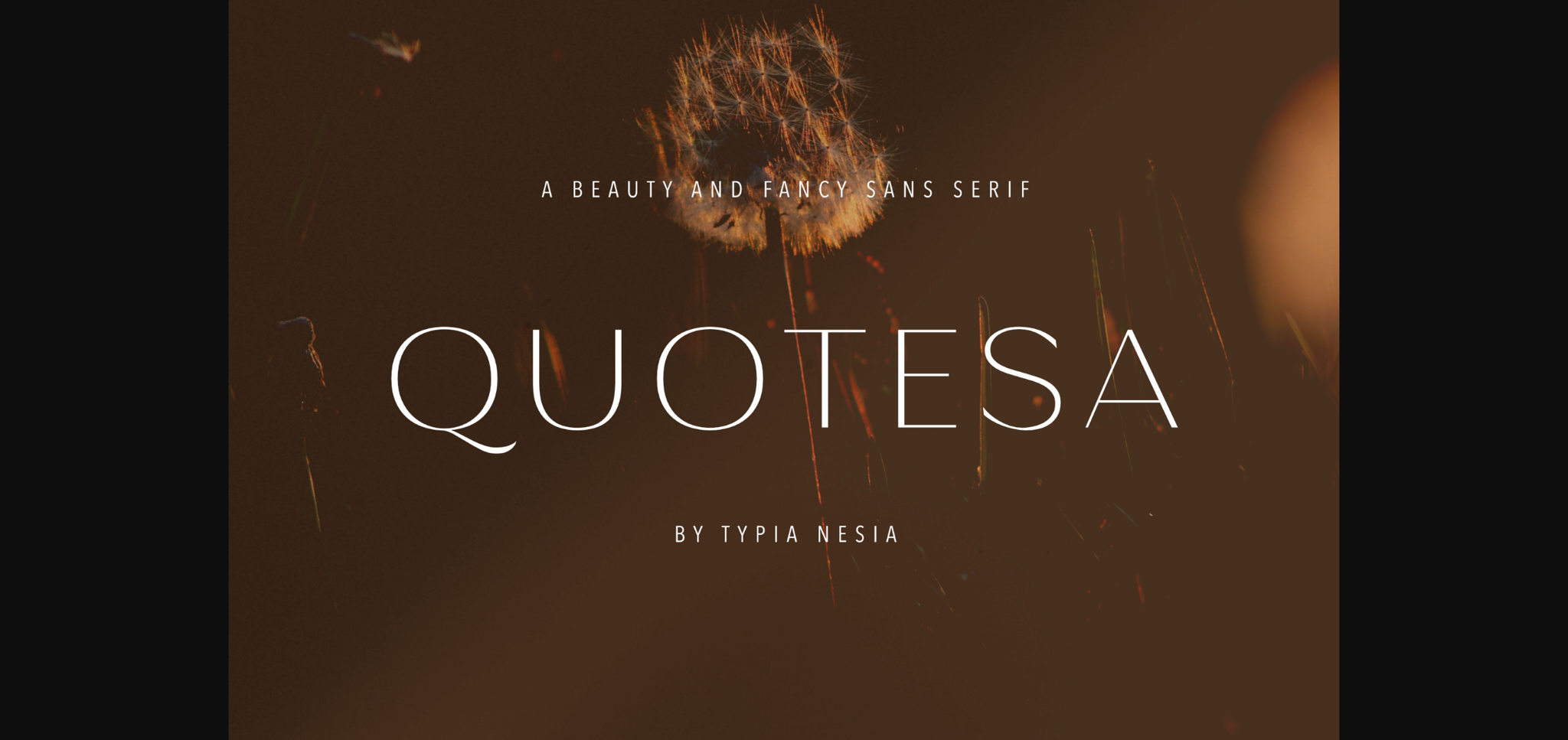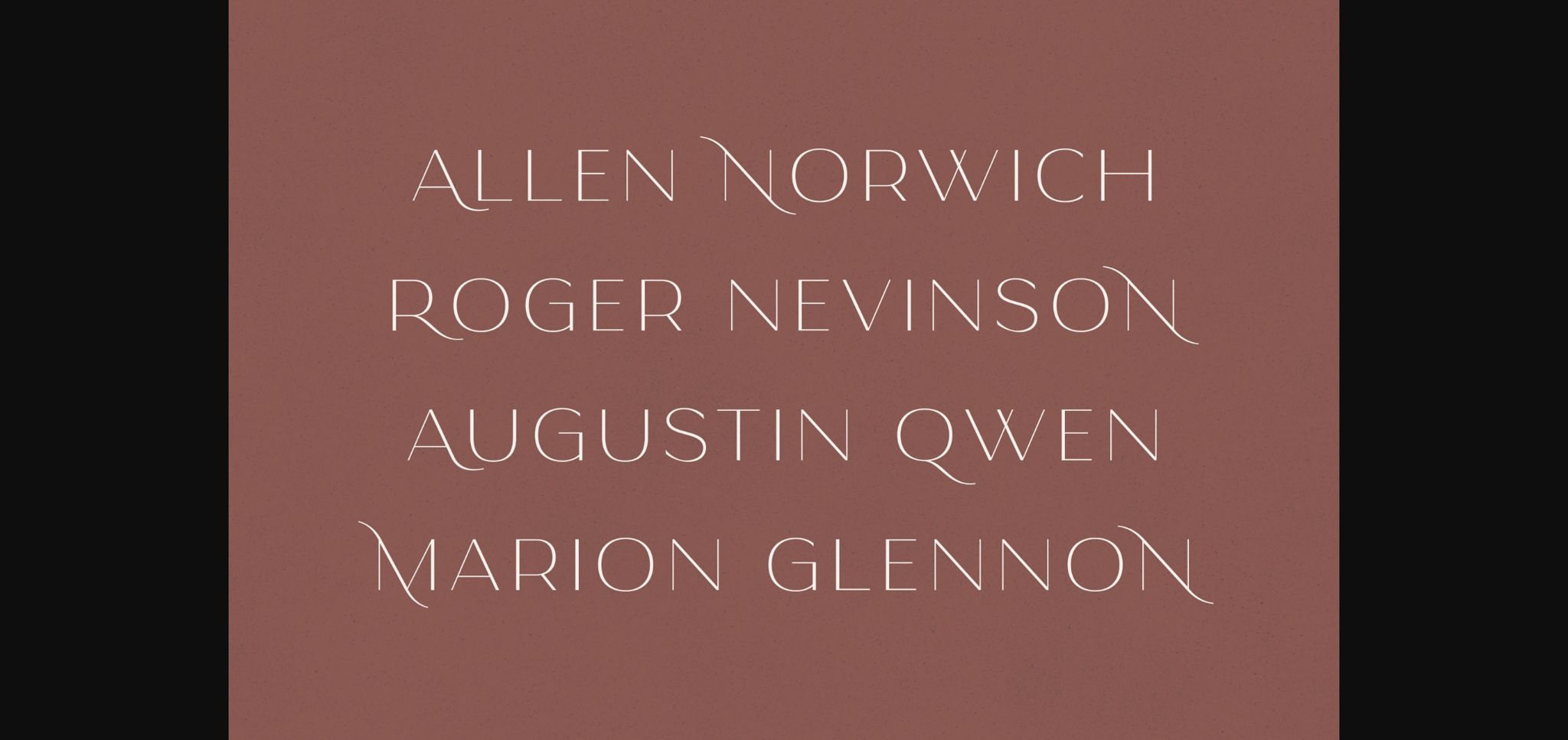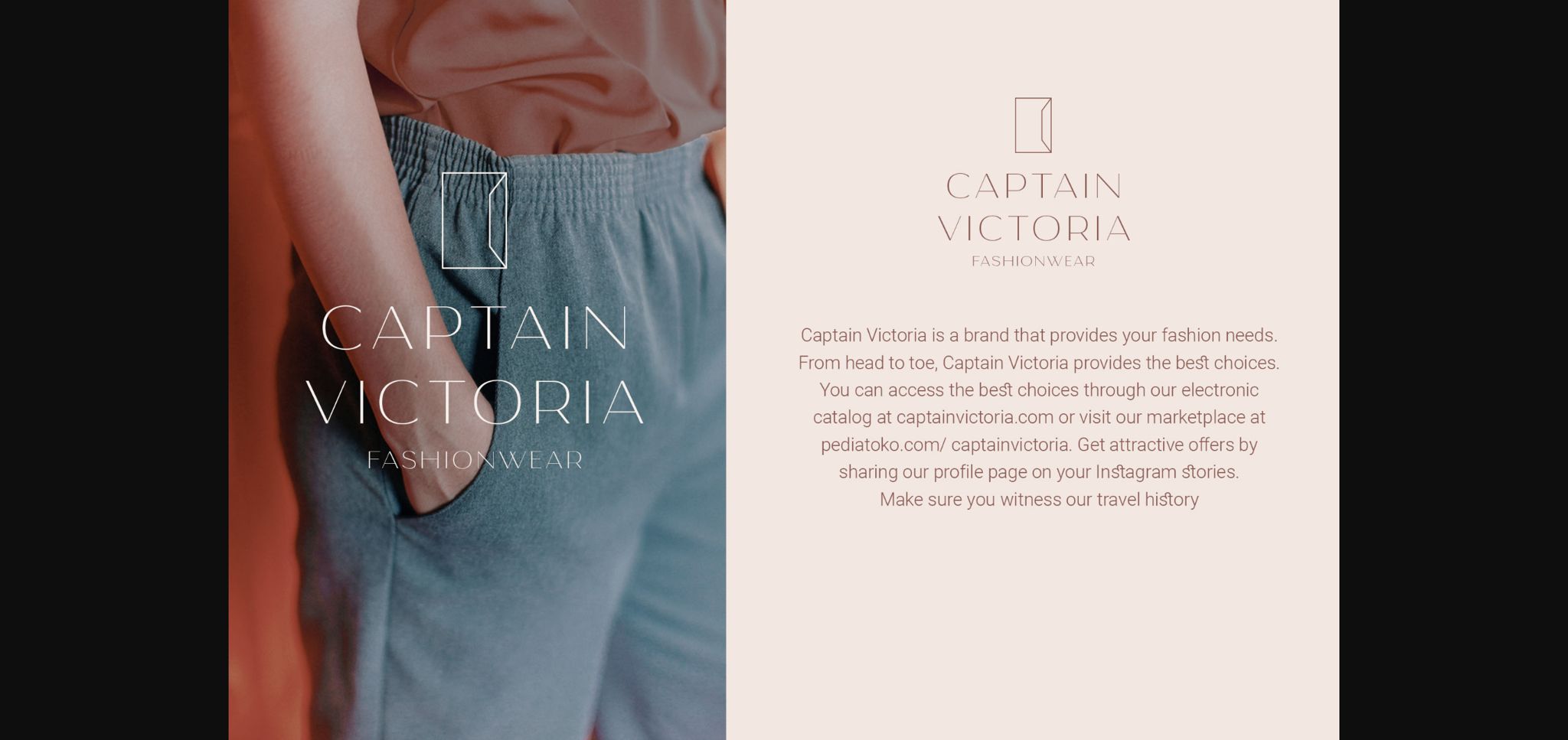
About Quotesa Font
Quotesa is an elegant and thin lettered sans serif font. Fall in love with its incredibly versatile style and use it to create gorgeous wedding invitations, beautiful stationary art, eye-catching social media posts, and much more!